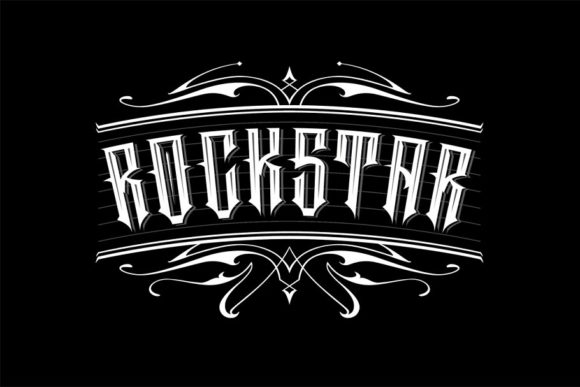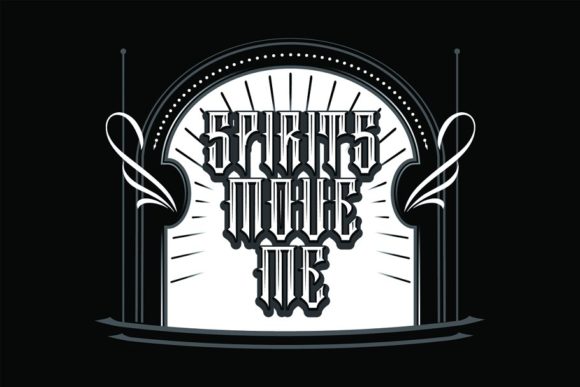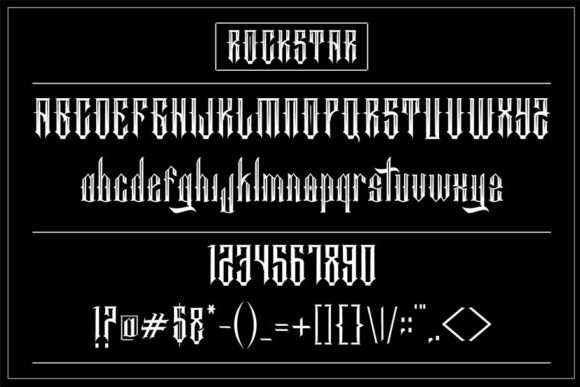
Rockstar Font
Rockstar is a bold and incredibly authentic blackletter font. Add this font to your favorite creative ideas and notice how it makes them come alive!